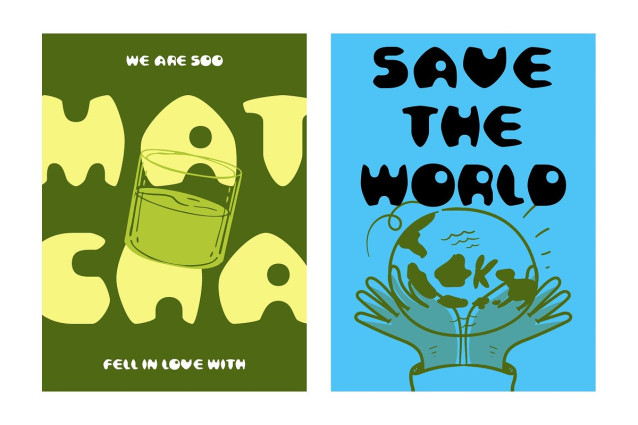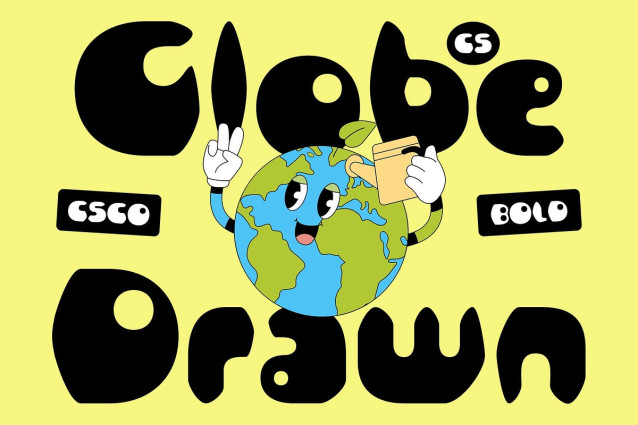
CS Globe Drawn Font
CS Globe Drawn Font is a modern sans-serif display font that fuses bold, geometric forms with a playful drawn effect, bringing a handcrafted, funky charm to its clean and structured base. The result is a font that feels both confident and expressive, ideal for designs that demand attention while keeping a personal and creative flair.
Expressive Typography for Bold Visuals With its thick strokes and fluid edges, this stylish and adaptable font conveys strength without rigidity. The drawn overlay introduces a natural, almost spontaneous feel—making it especially fitting for music-related graphics, energetic posters, and branding that thrives on individuality.
Creative Energy in Every Letter Whether you’re designing for digital media, print, or merchandise, this expressive font adapts beautifully to bold headlines, expressive titles, or standout brand marks. Its blend of modern sans-serif clarity with freeform charm makes it a great choice for contemporary projects that prioritize originality and visual impact.
Perfect for Designs That Want to Stand Out From creative studios to youth-centric campaigns, this energetic font is perfect for any project that seeks a bold, modern look with a handcrafted soul. Its versatility and charm make it a go-to for designers aiming to leave a lasting impression.